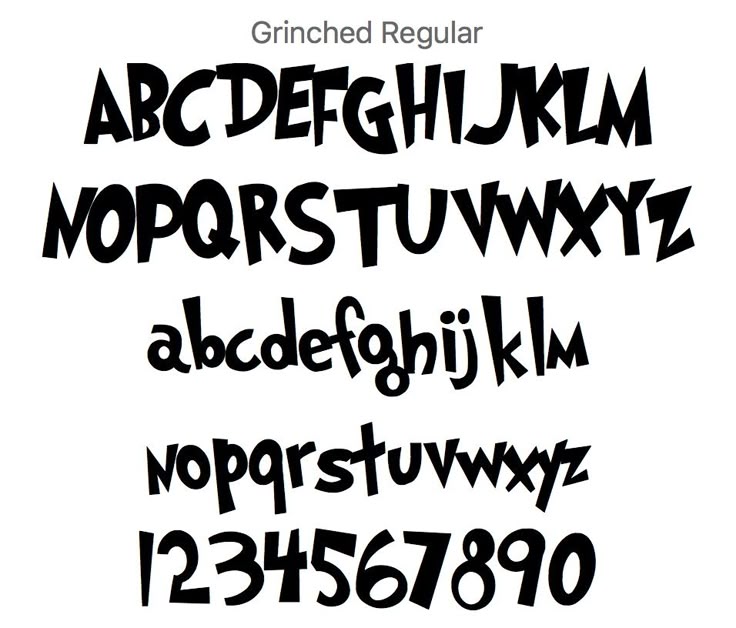
Printable Grinch Font
Printable Grinch Font - Grinched also known as grinch font is a fancy, cartoon font designed by sharkshock. The font is free for personal use only. Web looking for grinch fonts? Be sure to check out the new grinched 2.0, a complete remake with full punctuation, kerning and international characters. You can download and use the font free for personal projects. Every font is free to download! Web having that versatile shape, the grinch font will draw children’s attention in no time. Web the unsuccessful destruction finally helped grinch redeem himself and start a new life with its neighbors. It tells the story of the grinch, a grouchy, solitary creature who lives on a mountain and hates christmas. Web in fancy > cartoon 1,728,478 downloads (138 yesterday) 20 comments free for personal use download donate to author grinchedregular.otf note of the author truetypefont:
Every font is free to download! This is an excellent choice for projects such as promotional and branding material and commercial use. Be sure to check out the new grinched 2.0, a complete remake with full punctuation, kerning and international characters. Web having that versatile shape, the grinch font will draw children’s attention in no time. You can download the font for free here. Web in fancy > cartoon 1,728,478 downloads (138 yesterday) 20 comments free for personal use download donate to author grinchedregular.otf note of the author truetypefont: Grinched also known as grinch font is a fancy, cartoon font designed by sharkshock. Click to find the best 7 free fonts in the grinch style. The font is licensed as free for personal use. The font used for the film title in the poster is very similar to grinched regular.
Web download the best free grinch fonts from our extensive collection and bring the holiday spirit into your designs! Web this is the lovely font family, and all the weights have elegant and unique styling. The font used for the film title in the poster is very similar to grinched regular. Grinched dennis ludlow productions 2000 all rights reserved sharkshock.
Web having that versatile shape, the grinch font will draw children’s attention in no time. Perfect for cards, decorations, and more! Nov 24, 2022 488 26. The font used for the film title in the poster is very similar to grinched regular. The font is licensed as free for personal use.
Besides, this font is a unique ideal for use in printing purposes. Perfect for cards, decorations, and more! “how the grinch stole christmas” is a children’s book written by dr. This is an excellent choice for projects such as promotional and branding material and commercial use. The font is free for personal use only.
Perfect for cards, decorations, and more! Web the unsuccessful destruction finally helped grinch redeem himself and start a new life with its neighbors. Be sure to check out the new grinched 2.0, a complete remake with full punctuation, kerning and international characters. Besides, this font is a unique ideal for use in printing purposes. Web looking for grinch fonts?
Web grinched regular by sharkshock fonts is a font based on the how the grinch stole christmas title logo. It tells the story of the grinch, a grouchy, solitary creature who lives on a mountain and hates christmas. Every font is free to download! Perfect for cards, decorations, and more! Web looking for grinch fonts?
“how the grinch stole christmas” is a children’s book written by dr. Nov 24, 2022 488 26. Web looking for grinch fonts? Grinched also known as grinch font is a fancy, cartoon font designed by sharkshock. The font used for the film title in the poster is very similar to grinched regular.
Web having that versatile shape, the grinch font will draw children’s attention in no time. Web this is the lovely font family, and all the weights have elegant and unique styling. Web in fancy > cartoon 1,728,478 downloads (138 yesterday) 20 comments free for personal use download donate to author grinchedregular.otf note of the author truetypefont: “how the grinch stole.
Click to find the best 7 free fonts in the grinch style. Web the unsuccessful destruction finally helped grinch redeem himself and start a new life with its neighbors. The font is licensed as free for personal use. Be sure to check out the new grinched 2.0, a complete remake with full punctuation, kerning and international characters. The font is.
Web looking for grinch fonts? The font used for the film title in the poster is very similar to grinched regular. You can download the font for free here. Click to find the best 7 free fonts in the grinch style. You can download and use the font free for personal projects.
Web Looking For Grinch Fonts?
The font used for the film title in the poster is very similar to grinched regular. Nov 24, 2022 488 26. The font is licensed as free for personal use. You can download the font for free here.
It is a free font. Web grinched regular by sharkshock fonts is a font based on the how the grinch stole christmas title logo. The font is free for personal use only. It tells the story of the grinch, a grouchy, solitary creature who lives on a mountain and hates christmas.